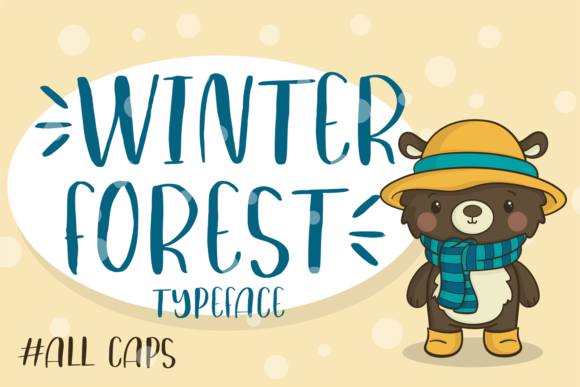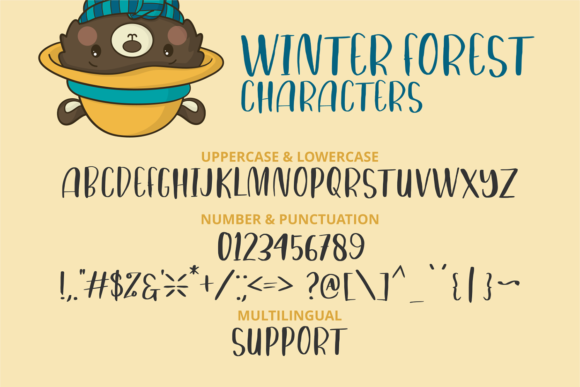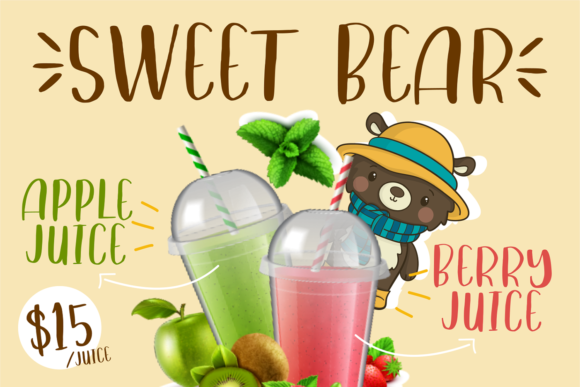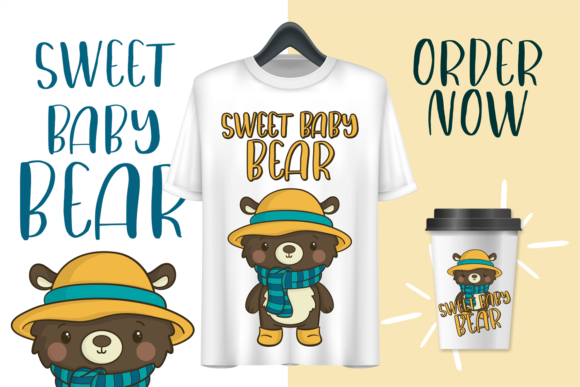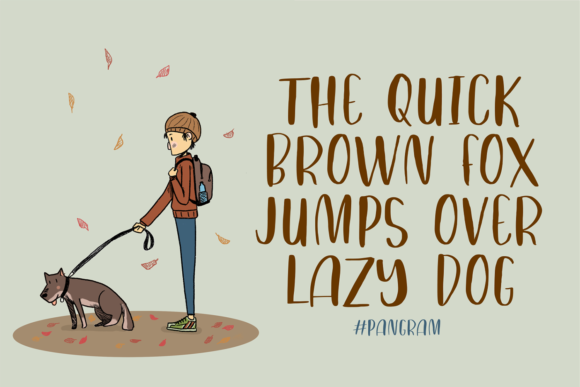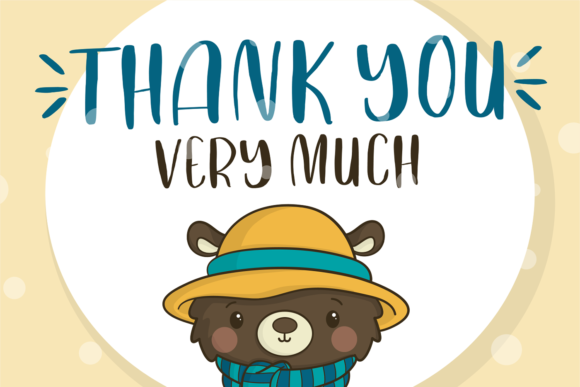
Winter Forest Font
Winter Forest embodies fun, quirkiness and authenticity. This enchanting handwritten font will turn any creative idea into a true standout.